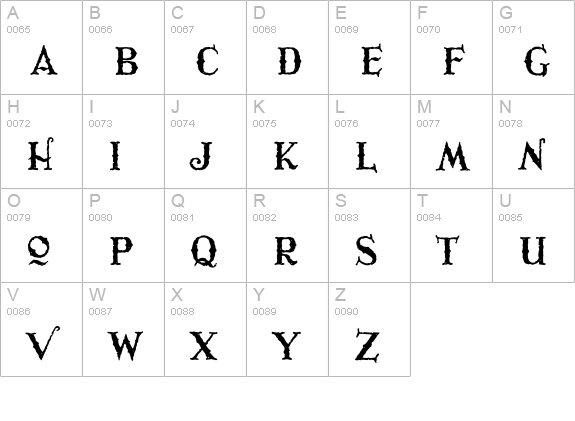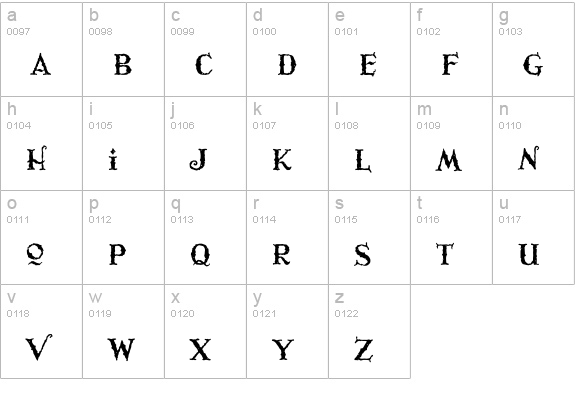
RetabloAntiguo Font Details
RetabloAntiguo font is a stunningly beautiful typeface that exudes a sense of elegance and timelessness. Inspired by the intricate details of traditional retablos, this font captures the essence of classic artistry in every stroke. Its carefully crafted letterforms showcase a perfect balance between delicate curves and strong, bold lines, creating a harmonious aesthetic that is both captivating and versatile. With its rich history and cultural significance, RetabloAntiguo font is the perfect choice for designers looking to add a touch of vintage charm to their projects. Whether used in branding, packaging, invitations, or editorial design, this font effortlessly adds a touch of sophistication and nostalgia to any composition. One of the most remarkable aspects of RetabloAntiguo font is that it is freely available to download at FontsMarket.com. This means that designers and typographers alike can access this exquisite typeface without any cost, making it an incredibly valuable resource for anyone seeking to elevate their creative work. The attention to detail and the meticulous craftsmanship that went into creating RetabloAntiguo font is evident in every character. From the graceful curves of the lowercase letters to the majestic ascenders and descenders, this typeface is a true testament to the artistry of the past. Its versatility is demonstrated in the various weights and styles available, ensuring that designers have the freedom to experiment and find the perfect fit for their projects. RetabloAntiguo font is not only a visual delight, but it also offers excellent legibility, ensuring that your message is conveyed with clarity and impact. Its timeless elegance makes it suitable for a wide range of applications, from branding and packaging to editorial design and signage. In conclusion, RetabloAntiguo font is a treasure trove of beauty and sophistication, seamlessly blending the old with the new. Its freely available download at FontsMarket.com makes it an invaluable asset for designers and typographers looking to infuse their work with a touch of classic charm. So go ahead, download this remarkable typeface and embark on a creative journey that will transport you to a bygone era of artistry and refinement.